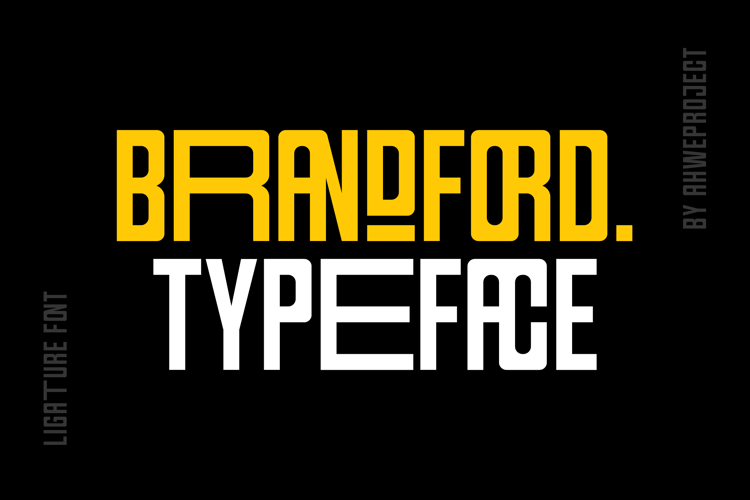
Brandford Font
About Brandford Font
BRANDFORD is a simple sans serif font with ligatures and alternates. It was purposely crafted to be used in large point sizes, although it doesn’t lose its magic in small point sizes. It is perfectly suited for designing unique logos & brands, bold packaging, powerful website headers, and so much more! With tons of ligatures, alternates, and other features to choose from, you can make your project stand out from the rest.